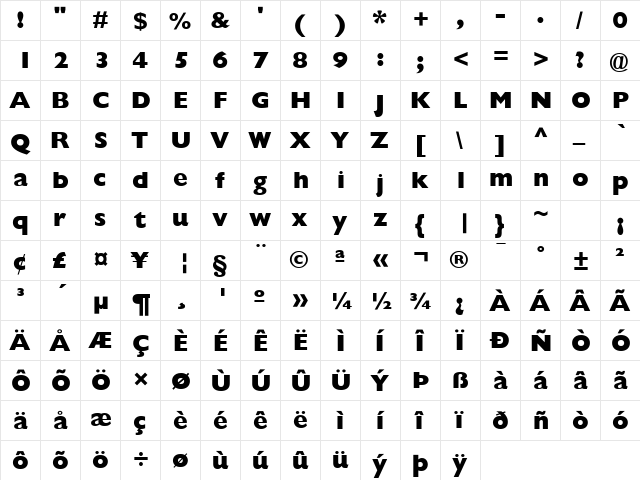
Garrison ExtraBold Sans BOLD
Design Context for Garrison ExtraBold Sans Typeface
Garrison ExtraBold Sans offers clean, dependable letterforms without strong stylistic allegiance, making it a practical choice for designers who need flexibility. Its bold stroke weight gives it real presence on the page.